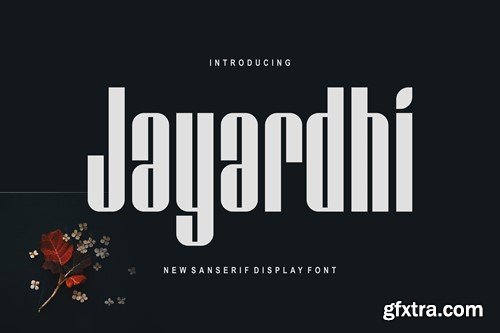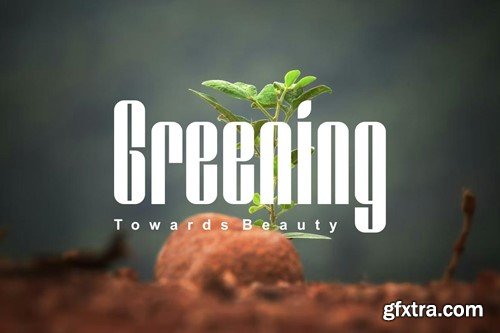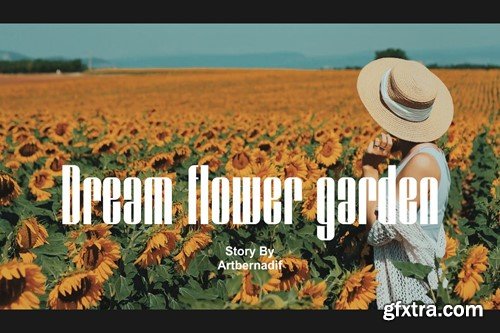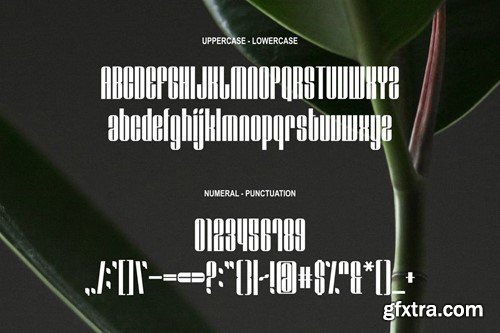
Jayardhi Font
Introducing our new product Jayardhi Font - Modern Font Jayardhi Font- Modern Font is a bold and authentic display font. The font is suitable for any branding project like logo, t-shirt printing, esport, and many more. outstanding in a wide range of contexts. availlable